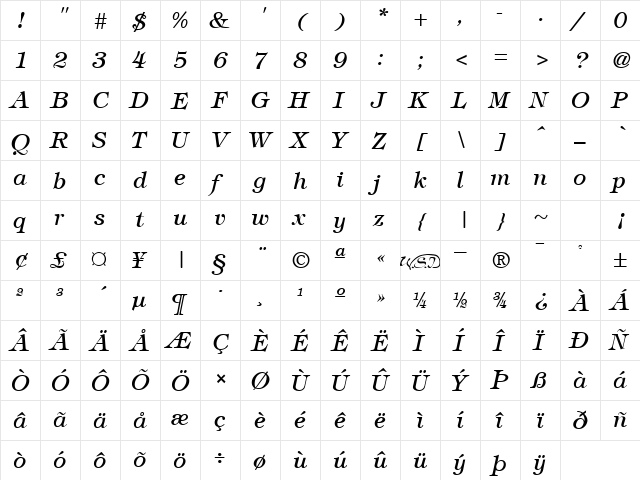
Timbrel Italic
Design Context for Timbrel Typeface
Timbrel is a composed and adaptable typeface that performs quietly and consistently across a wide range of design contexts. The dynamic lean of this cut emphasises speed and emphasis in any layout.
Pro Tip: Try Timbrel for annotation and caption copy alongside an upright companion — the contrast in angle creates a dynamic but ordered typographic system.